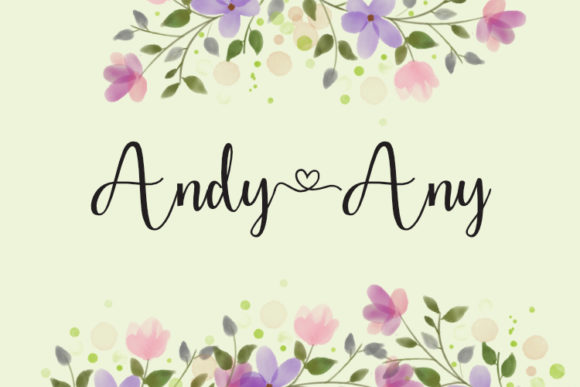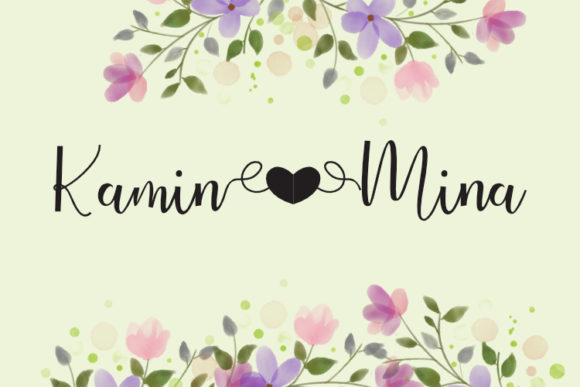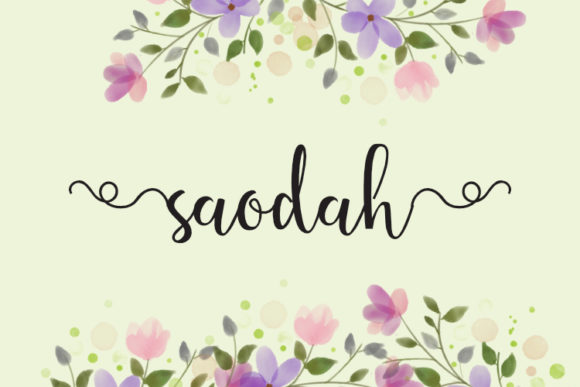
Introduction to MiloBely Font
Have you ever found yourself rummaging through your craft supplies, searching for the perfect font to give your DIY project that extra oomph? For many designers, this is a familiar experience. The right font can make all the difference in bringing a creative idea to life. And that’s exactly what we’re excited to introduce you to – the MiloBely Font.
| 👤 Author | pustudio |
This modern and lovely handwritten font is more than just a pretty face; it’s a design resource that can add a touch of personality to any project. With its friendly feel and high-quality design, MiloBely Font is the perfect addition to any creative endeavor. Whether you’re working on a free download or a professional design project, this font is sure to impress.
What sets MiloBely Font apart from other fonts is its versatility. It can be used on transparent backgrounds or as a standalone design element. And with its transparent background option, you can easily integrate it into your project without worrying about distracting backgrounds. So why wait? Download MiloBely Font today and start bringing your creative project to life!
Key Features of MiloBely Font
- High-quality design: MiloBely Font is a beautifully crafted font ideal for creative projects requiring a unique and stylish touch.
- Transparent background: This font features a transparent background, making it perfect for overlaying on images or videos.
- High-resolution design: MiloBely Font is designed at a high resolution, making it perfect for use in large-scale creative projects.
- Perfect for creative projects: This font is ideal for use in creative projects, such as graphic design, digital art, and visual effects.
- Design resource: MiloBely Font is a valuable addition to any designer’s or artist’s collection of design resources.
Honest Review: MiloBely Font
I recently came across the MiloBely Font, and I must say it’s a great addition to my design resources. The free download was a pleasant surprise, and the quality is top-notch.
The font is versatile and works well in a variety of creative projects, from logos to typography-heavy designs. The transparent background makes it easy to use in different contexts, and the font’s unique style is sure to add a touch of sophistication to any design.
- Limited character set
- Not ideal for extended text blocks
Overall, I’m impressed with the MiloBely Font. It’s a great design resource for anyone looking to add some flair to their creative projects. With its unique style and high-quality design, it’s definitely worth checking out.
Tips for Getting the Most Out of MiloBely Font
To maximize the use of MiloBely Font, consider the following tips:
- Use the font on a transparent background for a clean and minimalist look.
- Pair the font with high-quality images for a creative project.
- Experiment with different font sizes and styles to add visual interest.
Common Use Cases for MiloBely Font
MiloBely Font is ideal for various design projects, including:
- Business cards and brochures.
- Social media graphics and advertisements.
- Wedding invitations and event materials.